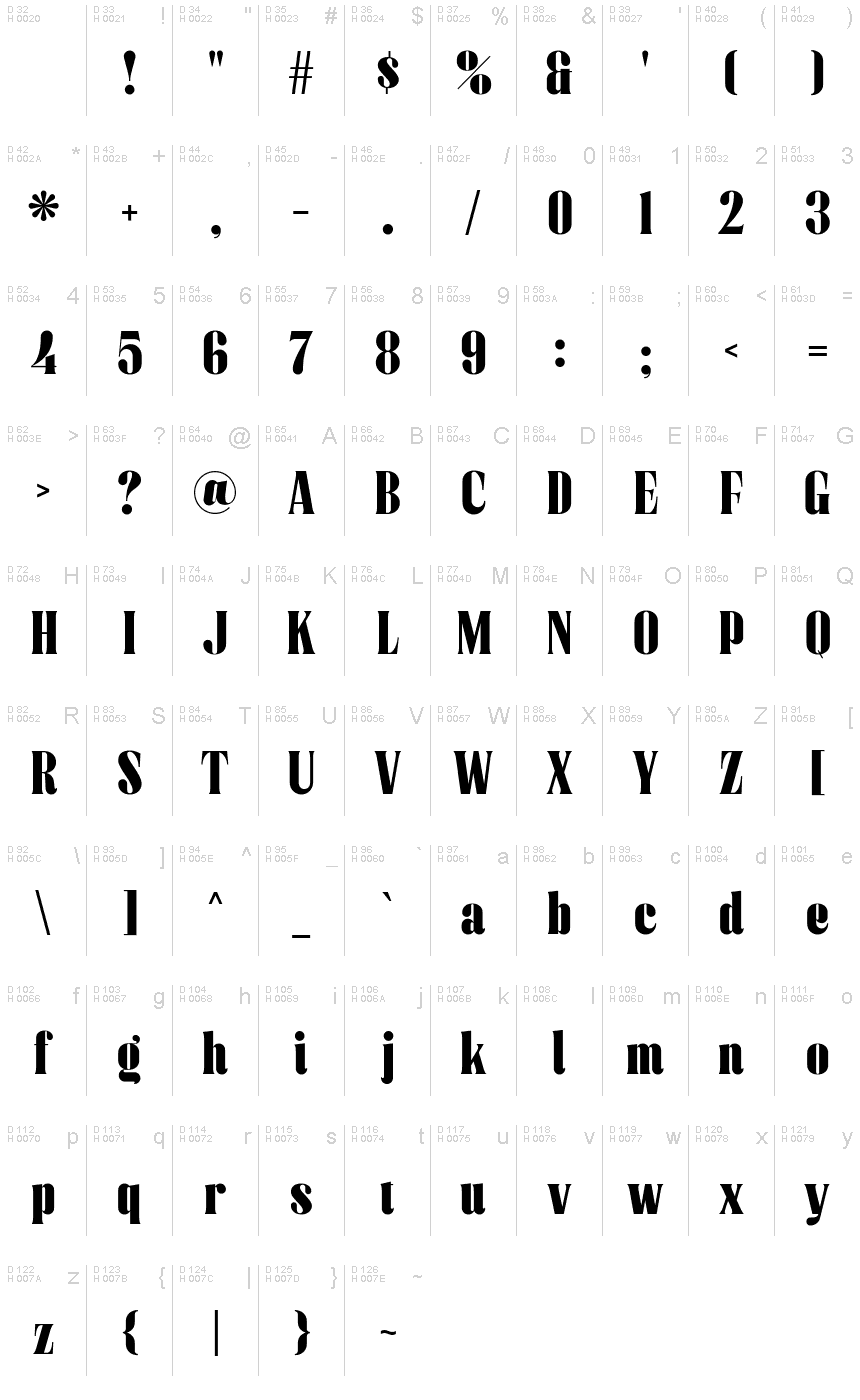
Magma DEMO Regular
Magma by surotype is a bold and striking retro serif font that is perfect for creating eye-catching headlines, titles, and logos. Its extra-condensed width makes it ideal for use in designs where space is limited, while its bold weight ensures maximum impact. This font's vintage style gives it a timeless appeal that can be used in a variety of projects, from vintage posters to modern websites. Whether you're designing a retro-inspired brand or creating an attention-grabbing advertisement, Magma's bold and condensed style will make your message stand out. So why not add some heat to your designs with Magma?